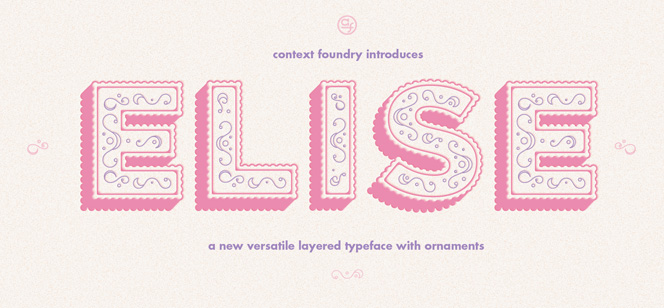
Elise font
Elise font by Alex Liebold (Context type foundry) is a charming multilayered display font family. It’s decorative, ornamental & embossed bringing sweet retro-vintage feeling. Elise typeface is full of customizable settings for your unique, vivid, and colourful type designs. Elise’s full beauty reveals when used in large point sizes and in colour.
Elise font family offers 6 variations: Full, 3D, Fill, Ribbed, Flourish, and the FREE Ornaments. Enjoy Elise’s diverse effects by stacking copies of your text blocks in your preferred design programme and setting each copy to a different Elise layer. Some additional flair can be added by placing the Elise Ribbed layer on top or to the bottom of the text stack.
Alex Liebold is an illustrator, graphic and type designer from United States of America, worked with organizations like Comedy Central, The University of Florida, The Miami Dolphins, Godiva, Ferrari, Versus, and many more.
Context Foundry is a creative association of four former colleagues form USA, aimed at designing fancy display typefaces.